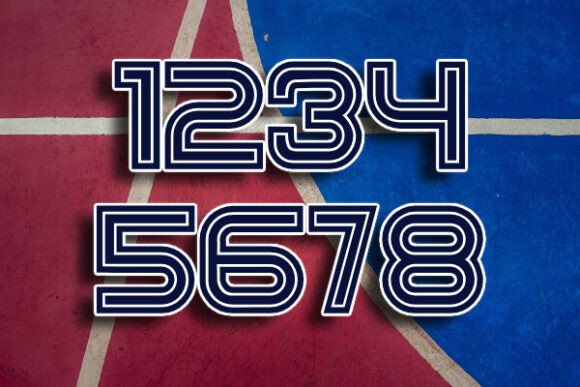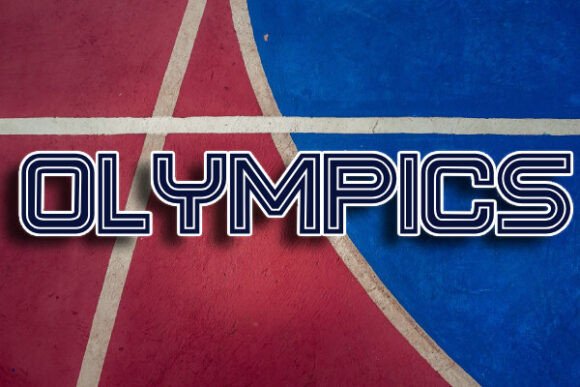
Athletic Shirt Font: Elevate Your Sports Designs with a Bold and Sporty Style
Are you looking for a font that embodies the spirit of athleticism and competition? Look no further than the Athletic Shirt Font, a bold and sporty display font designed specifically for sports teams, jerseys, and athletic wear. This dynamic font is perfect for designers and crafters who want to create a strong and energetic look that captures the essence of sports and fitness.
What is Athletic Shirt Font?
Athletic Shirt Font is a carefully crafted display font that features strong, bold letters that are easy to read, even from a distance. Its sporty design makes it an ideal choice for creating jerseys, team logos, and other athletic wear designs that require a font that can stand out and make a statement. Whether you’re designing for a professional sports team or a local recreational league, Athletic Shirt Font is the perfect choice.
Key Features of Athletic Shirt Font
- Bold and Sporty Design: Athletic Shirt Font features a bold and sporty design that is perfect for creating dynamic and energetic designs.
- Easy to Read: The font’s strong letters are easy to read, even from a distance, making it perfect for jerseys, team logos, and other athletic wear designs.
- Versatile: Athletic Shirt Font is versatile and can be used for a wide range of design projects, from professional sports teams to local recreational leagues.
- Dynamic and Energetic: The font’s bold design creates a dynamic and energetic look that is perfect for designs that need a touch of action and excitement.
Why Choose Athletic Shirt Font?
There are many fonts to choose from, but Athletic Shirt Font stands out from the rest due to its unique combination of boldness, sportiness, and readability. Here are just a few reasons why designers and crafters choose Athletic Shirt Font:
- Instant Recognition: The font’s bold design provides instant recognition, making it perfect for jerseys, team logos, and other athletic wear designs.
- Professional Look: Athletic Shirt Font gives your designs a professional look that is perfect for sports teams, leagues, and organizations.
- Easy to Pair: The font is easy to pair with other fonts, making it versatile and easy to use in a wide range of design projects.
How to Use Athletic Shirt Font
Athletic Shirt Font is easy to use and can be applied to a wide range of design projects. Here are just a few ideas to get you started:
- Jerseys and Team Logos: Use Athletic Shirt Font to create bold and dynamic jerseys and team logos that make a statement.
- Athletic Wear Designs: Apply the font to athletic wear designs, such as t-shirts, hoodies, and hats, to create a sporty and energetic look.
- Sports Posters and Flyers: Use Athletic Shirt Font to create eye-catching sports posters and flyers that grab attention and create excitement.
Tips and Tricks for Working with Athletic Shirt Font
Here are a few tips and tricks to keep in mind when working with Athletic Shirt Font:
- Use it Boldly: Athletic Shirt Font is designed to be used boldly, so don’t be afraid to experiment with different font sizes and styles.
- Pair it with Other Fonts: The font is easy to pair with other fonts, so experiment with different combinations to find the perfect look for your design.
- Experiment with Colors: Athletic Shirt Font looks great in a wide range of colors, so experiment with different color schemes to find the perfect look for your design.
Athletic Shirt Font is a bold and sporty display font that is perfect for sports teams, jerseys, and athletic wear. Its strong letters are easy to read, making it great for creating a dynamic and energetic look. Whether you’re a designer or crafter, Athletic Shirt Font is an ideal choice for any design that needs a touch of action and excitement. So why wait? Download Athletic Shirt Font today and start creating bold and dynamic designs that make a statement!